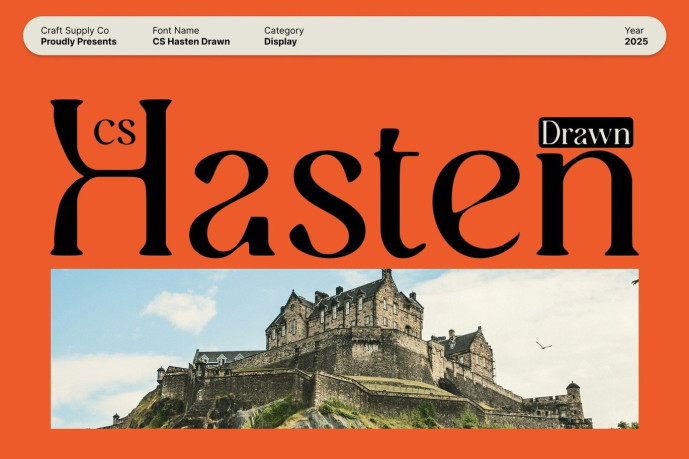
Hasten Drawn Font
Hasten Drawn Font — An artistic serif typeface with refined curves and a luxurious drawn texture. Refined curves with a high-end artistic character. This is a beautifully designed serif typeface that combines refined curves with thoughtful artistic details. Each letter is shaped to convey sophistication and elegance, giving the typeface a luxurious presence. Its graceful forms create a refined, high-end impression suitable for modern designers who value the beauty and refinement of their typography.
Textured design for a soft and expressive personality. Enhancing its elegant structure, it incorporates a delicate textured design that brings warmth, softness, and a handcrafted touch. This handcrafted finish gives each character a subtle irregularity, making the typeface more human, expressive, and visually appealing. The texture enriches the overall look, offering a gentle artistic charm that enhances any design.
Perfect for luxury design, editorials, and distinguished brands. Whether creating a luxury brand image, editorial layouts, magazine titles, packaging, invitations, or creative visual identities, it works beautifully. Its combination of refined serif shapes and soft texture makes it ideal for projects that require a sophisticated, exclusive, and art-focused aesthetic.
A versatile serif font that combines grace and creative expression. This typeface offers a perfect blend of elegance and artistic flair. Its graceful curves bring sophistication, while the hand-drawn texture adds depth and personality. This makes it a versatile choice for designers who want to produce visuals that are both polished and expressive.